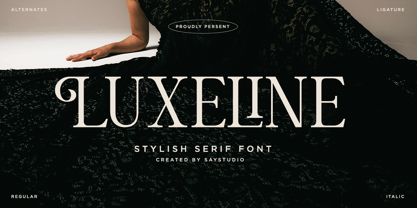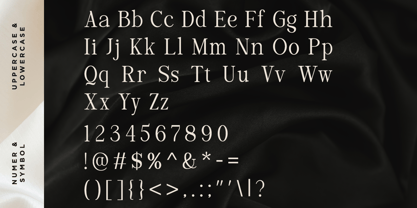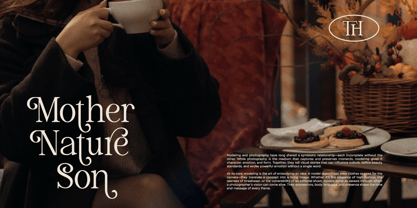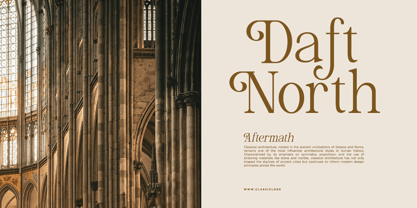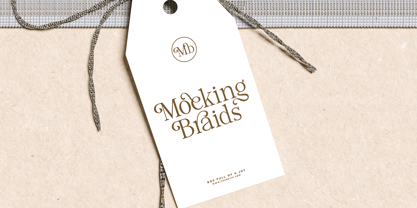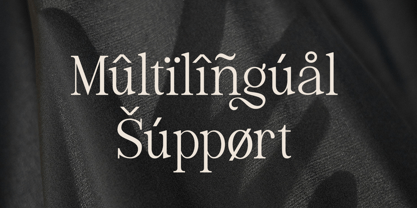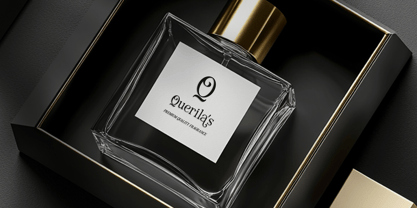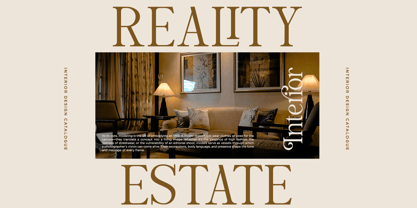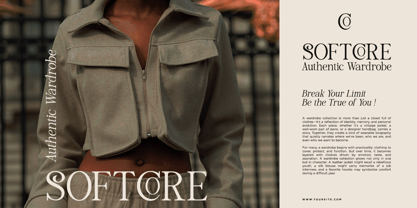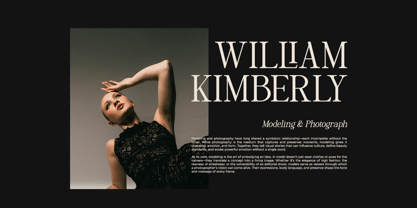
Luxeline
Introducing Luxeline, a sophisticated serif font that exudes timeless elegance and modern charm. With its refined letterforms, subtle curves, and strong presence, Luxeline is designed to make your brand stand out. Perfectly balanced between classic and contemporary, this font brings a sense of luxury and confidence to any design. Perfect for Branding & Logo Design, Editorial & Magazine Layouts, Wedding Invitations, Product Packaging, Social Media & Content Creation, Fashion & Beauty Design. Whats Included : - Luxeline Regular - Luxeline Italic - Alternates & Ligatures - Multilingual Support - Number, and Symbol. Thank you. Have a nice day ! Say Studio